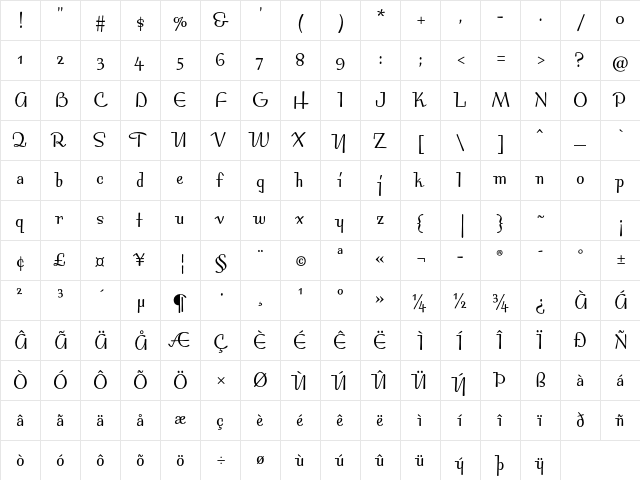
Bossa Nova MVB Std Regular
| Designer | Holly Goldsmith |
Design Context for Bossa Nova MVB Std Typeface
Bossa Nova MVB Std is a composed and adaptable typeface that performs quietly and consistently across a wide range of design contexts.